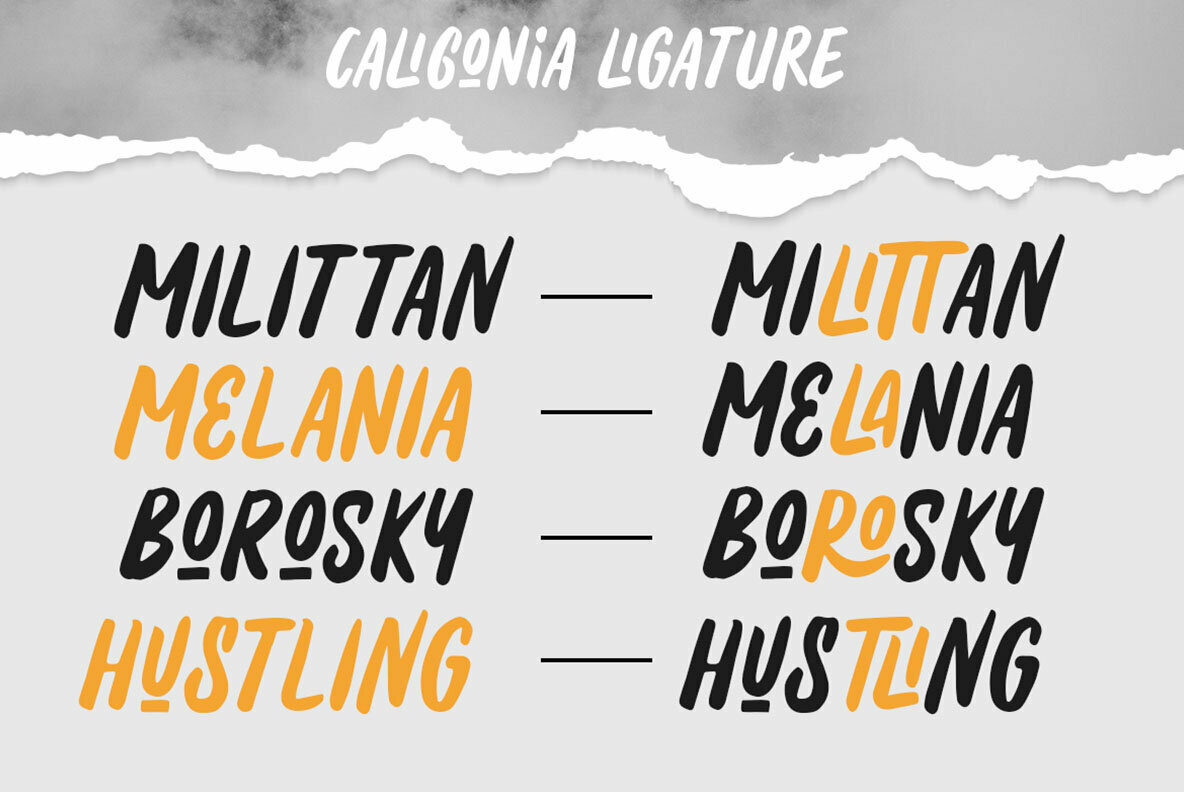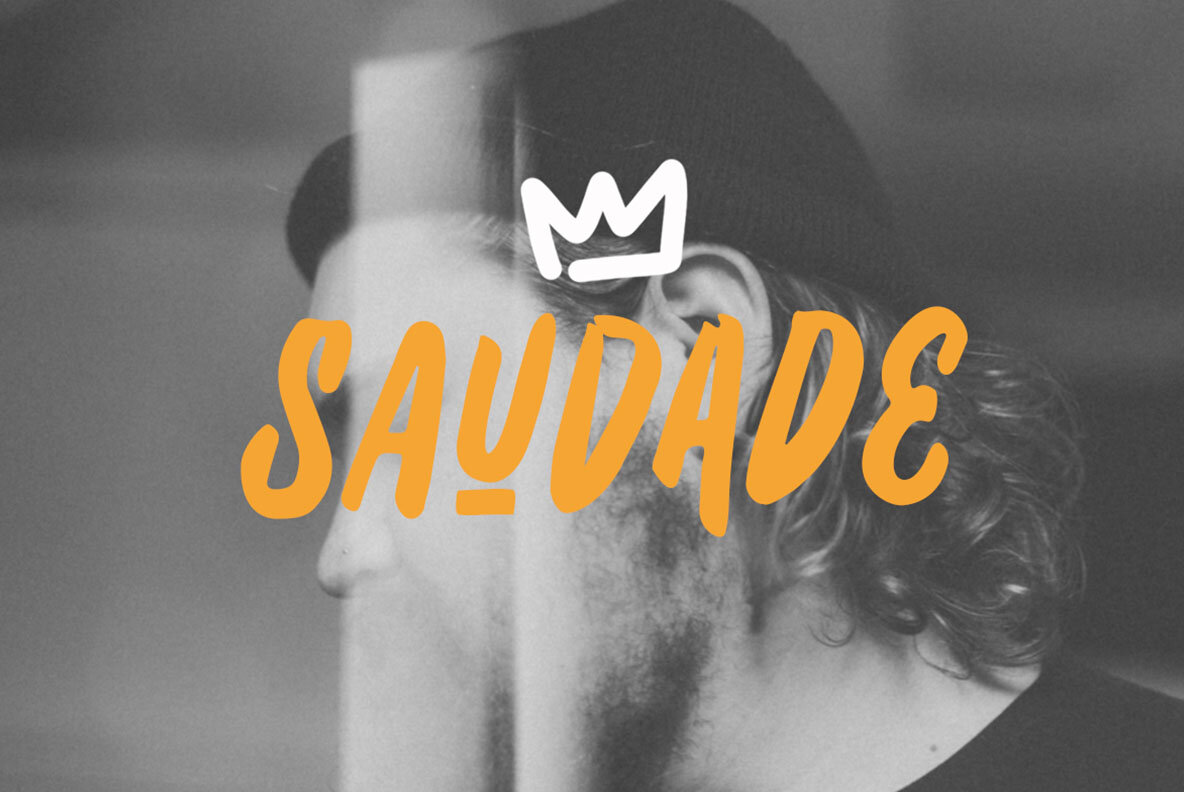
Caligonia Font
Caligonia
Caligonia is a casual display font that adds a touch of personality and distinction to your design projects. Its unique ligatures make it particularly well-suited for creating logos and formal forms like invitations and labels. Designed by Letterhend Studio, Caligonia blends sophistication with playfulness, making it an excellent choice for a variety of applications, including magazines, books, greeting and wedding cards, packaging, and advertising.Caligonia: Elegant Display Font with Unique Ligatures